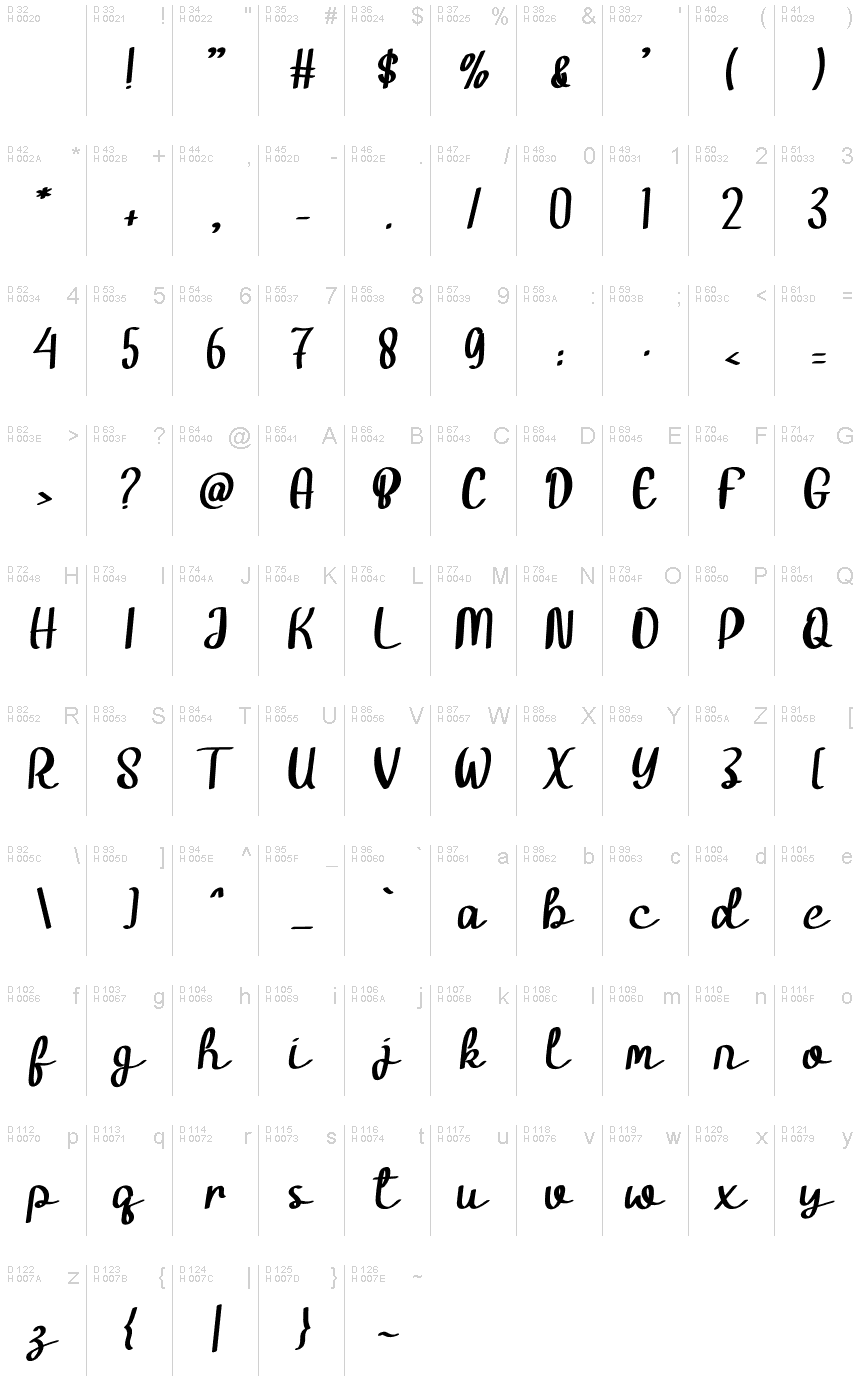
DREAM GIRL
Dream Girl is a stunning handwritten font designed by Inermedia Studio, perfect for adding a touch of elegance and personality to any project. Its semi-condensed width adds a modern twist to its classic look, making it ideal for a wide range of creative designs. Use Dream Girl in your wedding invitations, greeting cards, logos, branding materials, social media posts or any other project where you want to convey femininity and grace. With its beautiful cursive lettering and unique character set, Dream Girl will elevate your designs to the next level. Download it today and let your creativity soar!